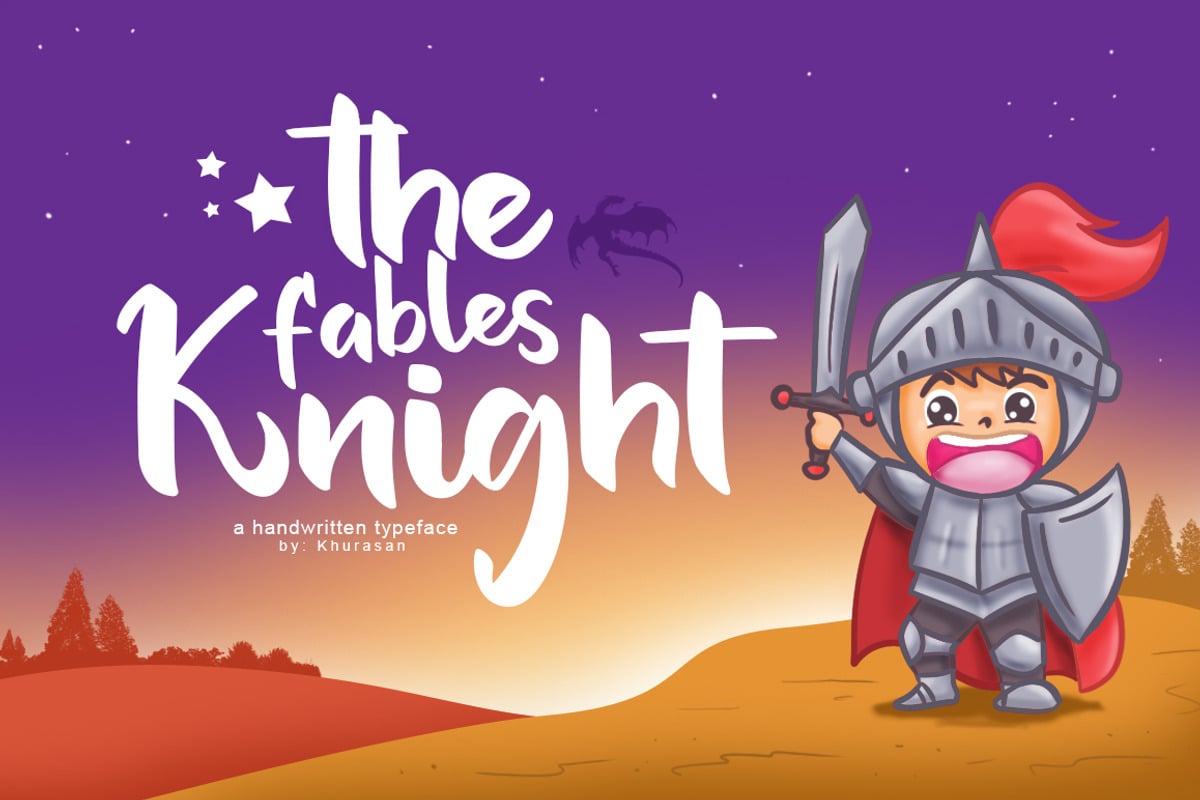
The Fables Knight Font
Bring magical adventures to life with The Fables Knight – a bold script font designed for whimsical storytelling projects. This cheerful typeface captures the spirit of fairy tales and fantasy adventures, making it perfect for creating enchanting designs that spark imagination. The bold script style combines playful charm with excellent readability, ideal for both headlines and decorative text. The Fables Knight font works beautifully for: Logo design and branding projects Eye-catching posters a...